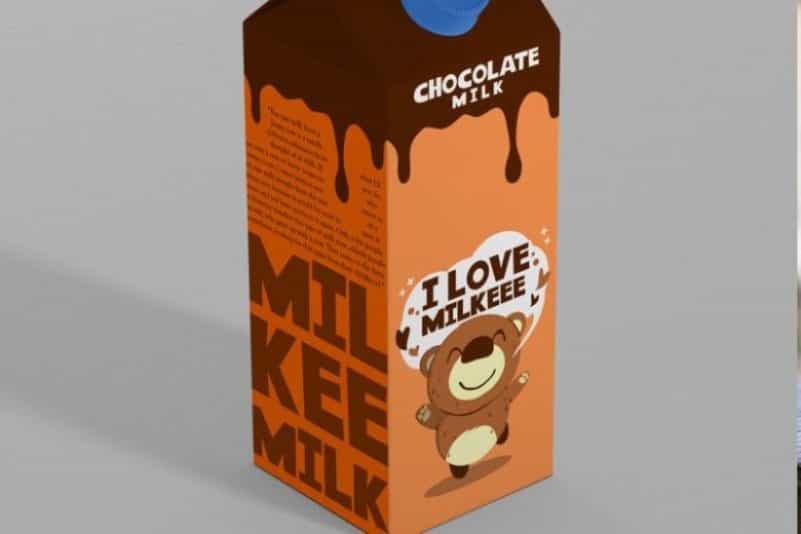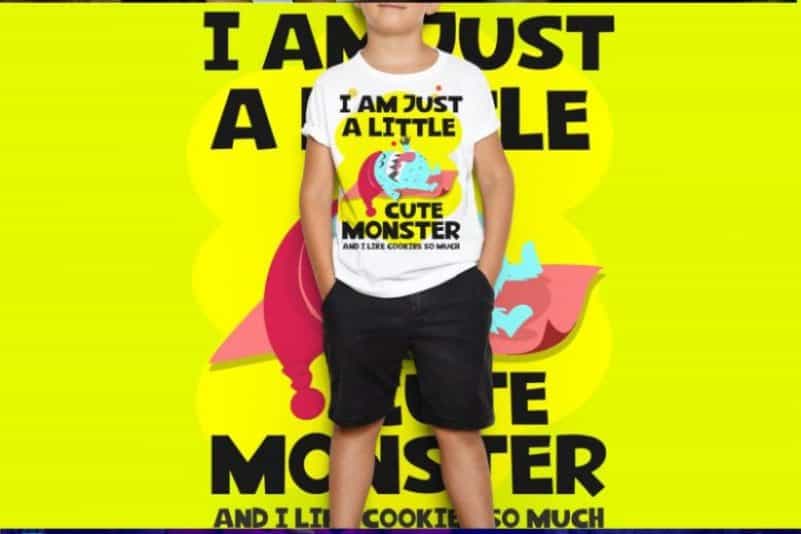
Discover Banana Island Font, part of the Sans Serif Display collection—a versatile and unique font perfect for adding a personal touch to your projects. Download it for free and enjoy crafting designs with style, from invitations to social media posts. This font is available exclusively for personal use, giving you the freedom to create without limits. Unlock your creativity with Banana Island Font today!
Banana Island is an experimental but fun font. Use it in your ideas and see how they will look like, you will be surprised with the difference!